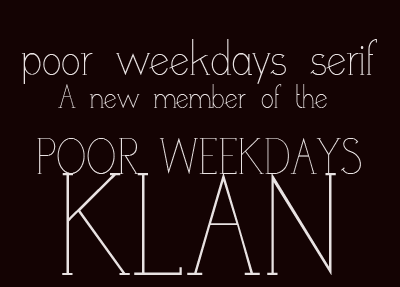
This is a serif version of my "poor weekdays" fonts. I hope you like it! If you find kerning issue please let me know to fix it. Also feel free to drop me a line in case of questions , more glyphs, language extention or just feedback this font ! I appreciate and respect donations as well. Thank you and have a nice (not poor at all) day to all! |